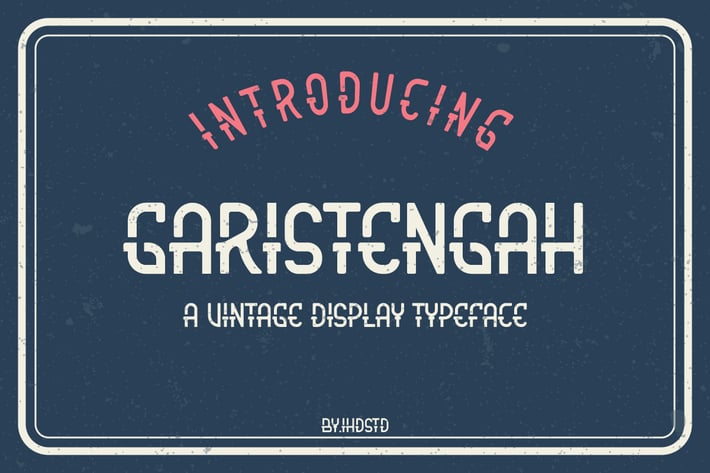
Garistengah Vintage Display Typeface
This is our newest font, which is called GARISTENGAH, this font is inspired by the old vintage designs.
GARISTENGAH is a great font for branding, packaging, posters, titles, book covers, flyers, t-shirt designs and etc.